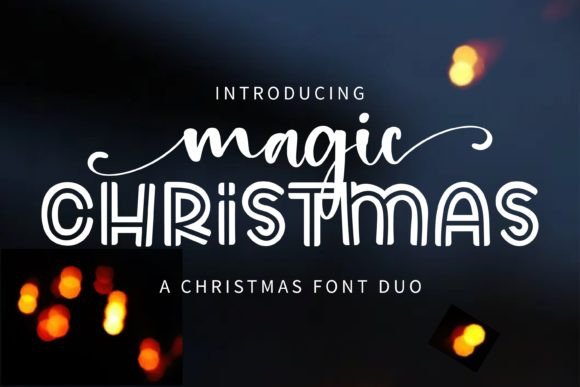
Magic Christmas Duo Font for Web Design
Selecting the right typography is one of the most critical decisions in digital product design. For web designers and UI creators, a font must do more than look attractive on a static mockup; it needs to perform across devices, support conversion goals, and maintain brand consistency. The Magic Christmas Duo offers a versatile solution for these challenges by combining a handwritten sans display with a complementary script typeface. This dual-style approach allows digital creators to establish a warm, authentic visual identity without sacrificing the structural integrity required for modern web interfaces.
As a display font category, Magic Christmas Duo is engineered specifically for high-impact areas of a website. Unlike body copy fonts designed for long-form reading, this typeface excels in hero sections, landing page headers, and promotional banners where capturing attention within seconds is paramount. The natural, organic flow of the handwritten elements introduces a human touch to digital screens, which can often feel sterile or overly corporate. For brands focusing on lifestyle products, coaching services, or artisanal goods, this typographic personality bridges the gap between professional web design and personal connection.
Enhancing Visual Hierarchy in Digital Layouts
Effective web design relies heavily on visual hierarchy to guide user scanning behavior. Magic Christmas Duo supports this by providing distinct typographic voices within a single family. The sans display variant serves as an excellent anchor for primary headlines. Its clean yet handcrafted letterforms offer enough weight to stand out against complex background images or solid color blocks commonly found in SaaS and e-commerce hero sections. Because it retains the structure of a sans serif while incorporating handwritten nuances, it remains legible at larger sizes without becoming difficult to parse.
The included script variant functions best as a supporting element rather than a primary navigation tool. In UI design, this style is ideal for accentuating specific value propositions, adding decorative flourishes to section dividers, or creating emotional hooks in call-to-action areas. For example, a landing page for a holiday course might use the sans display for the main title "Master Your Holiday Marketing" while utilizing the script style for a subhead like "with confidence and joy." This contrast creates a rhythmic layout that keeps users engaged and directs their eyes toward conversion points.
Practical Applications Across Web Projects
The versatility of Magic Christmas Duo makes it suitable for a wide range of digital environments. When designing for boutique online stores, the font adds a premium, curated feel to product category headers and sale announcements. The handwritten aesthetic suggests craftsmanship and care, which can increase perceived value for physical products. For creative portfolios and personal branding sites, the typeface communicates authenticity and approachability, helping freelancers and artists differentiate themselves in a crowded market.
Readability and Responsive Considerations
While display fonts are inherently decorative, web usability must never be compromised. When implementing Magic Christmas Duo, designers should pay close attention to responsive scaling. Handwritten and script fonts can sometimes lose clarity when scaled down for mobile devices. It is advisable to set minimum font sizes for the script variant or switch to the sans display version on smaller breakpoints to ensure accessibility. Testing across various screen densities is essential to verify that the intricate details of the letterforms do not blur or pixelate on high-resolution displays.
Contrast ratios also play a significant role in digital readability. The organic nature of this font means stroke widths may vary, which can affect legibility against certain backgrounds. When placing text over photography or textured patterns, ensure there is sufficient overlay opacity or text shadow to maintain WCAG compliance. On dark mode interfaces, the handwritten texture of Magic Christmas Duo can create a cozy, intimate atmosphere, but designers must avoid using pure white text on pure black backgrounds to prevent halation. Opting for off-white or cream tones often yields better results with this specific typeface style.
Strategic Font Pairing for Web Interfaces
Magic Christmas Duo is a display typeface, meaning it should rarely be used for extended body copy. To build a complete digital design system, pair it with a highly readable sans serif or serif font for paragraphs, navigation menus, and functional UI elements. A geometric sans serif like Montserrat or Open Sans provides a neutral foundation that allows the personality of Magic Christmas Duo to shine without competing for attention. This combination balances creativity with utility, ensuring that while the brand voice is distinctive, the user experience remains frictionless.
For editorial-style websites or blogs, pairing the script variant with a classic serif font can evoke a magazine-like quality. This approach works particularly well for storytelling brands, wellness platforms, or luxury travel sites. The key is to limit the use of Magic Christmas Duo to moments of emphasis. Overusing a decorative font dilutes its impact and can fatigue the reader. By reserving it for headers, quotes, and key interactive elements, you preserve its power as a design asset.
Leveraging PUA Encoding and Technical Assets
A significant advantage for digital creators is the PUA (Private Use Area) encoding included with Magic Christmas Duo. This feature allows access to special characters, alternates, and ligatures directly within standard design software and some web platforms without requiring specialized tools. For web designers creating custom SVG graphics or CSS-based typography effects, these alternates provide the flexibility to customize letter connections and avoid repetitive character shapes. This level of control is vital for maintaining a natural, non-mechanical appearance in digital headlines.